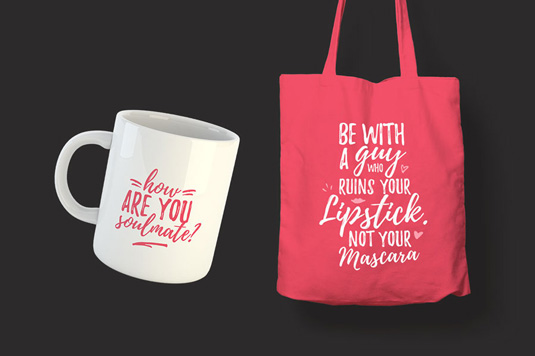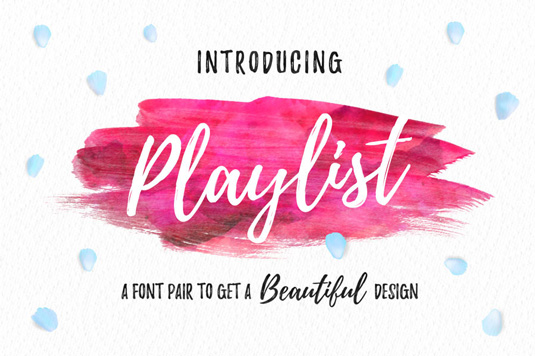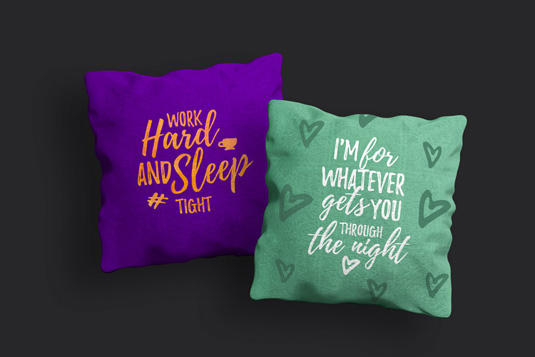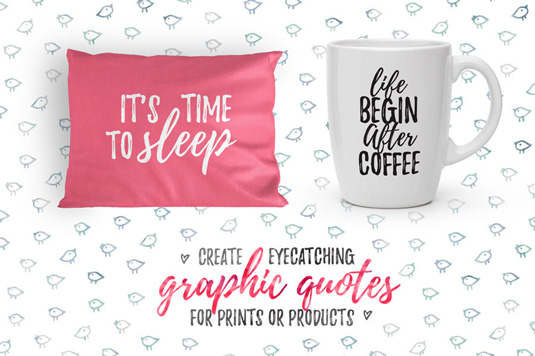
Font of the day: Playlist
Every day we showcase the best fonts on the web. Today it's Playlist from Artimasa Studio.
Playlist from Artimasa Studio
Today's typeface of choice is Playlist, created by the team at Artimasa Studio. Available via Behance, Playlist is described as 'a perfectly imperfect handdrawn font with dry brush styles – suitable for wedding invitations, greeting cards, posters, t-shirts and much more'.